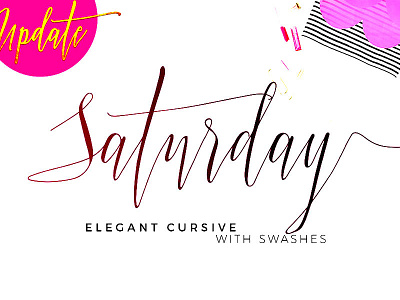
Saturday Font - Elegant Calligraphy with Extra Swashes
Hi Creative! Introducing my font, Saturday, Elegant Cursive with Extra Swashes, special made to beautify any modern calligraphy / lettering design needs.
Now Saturday font has 13 pairs swashes ornaments, beside the built-in swashes letters.